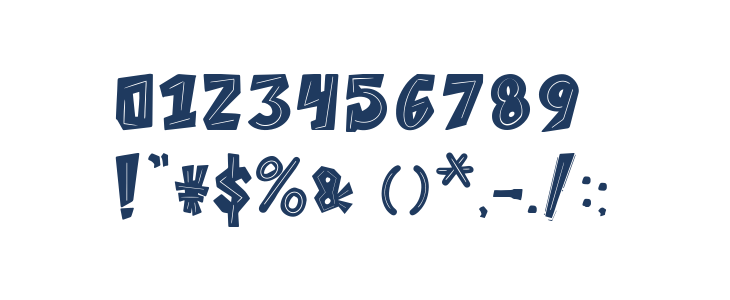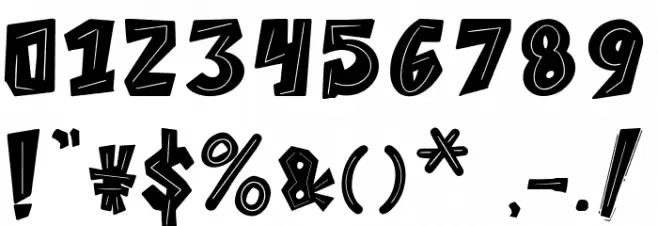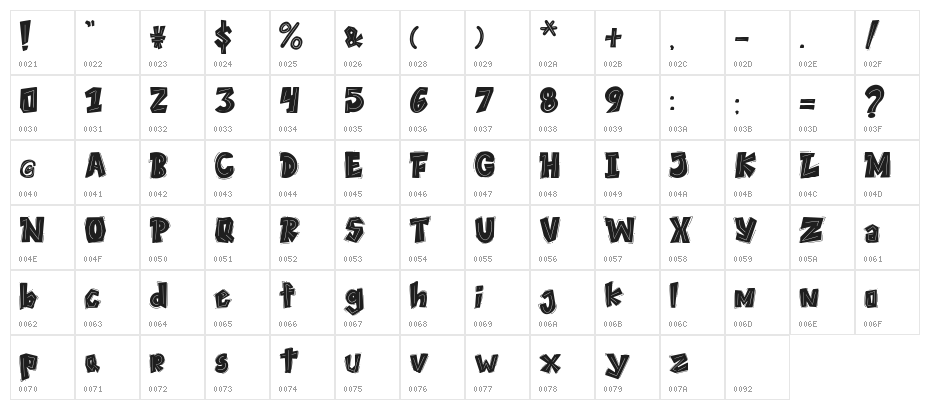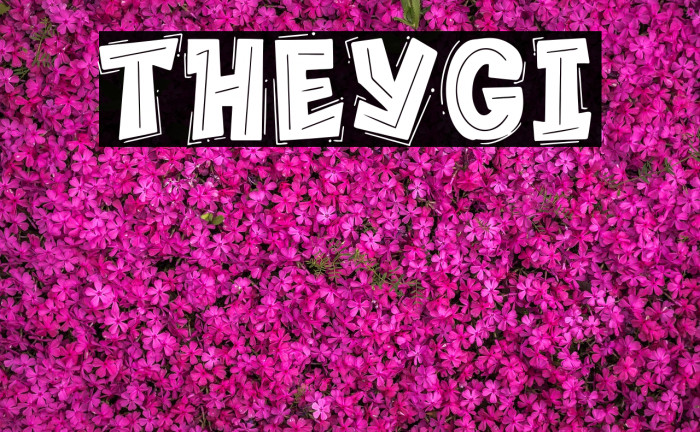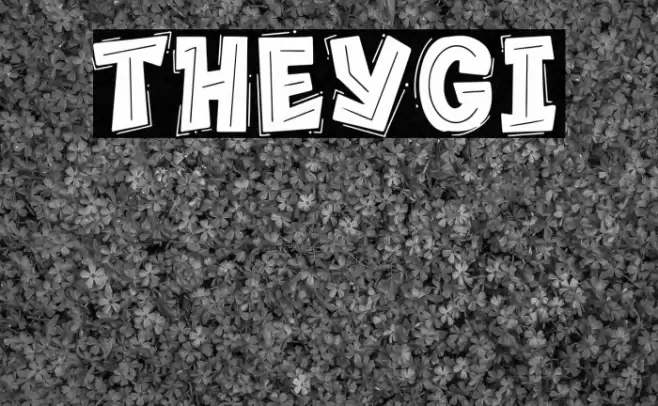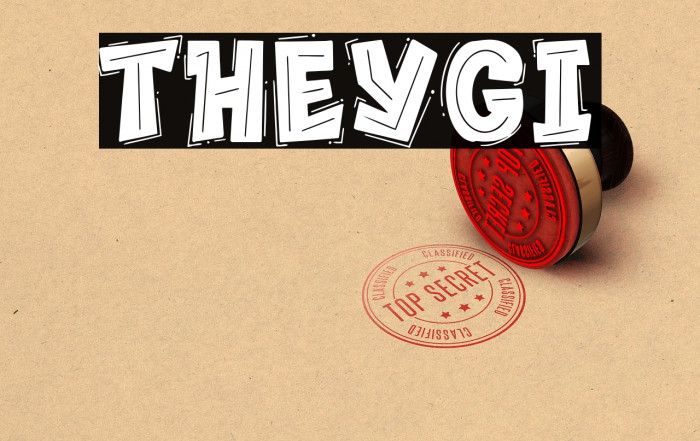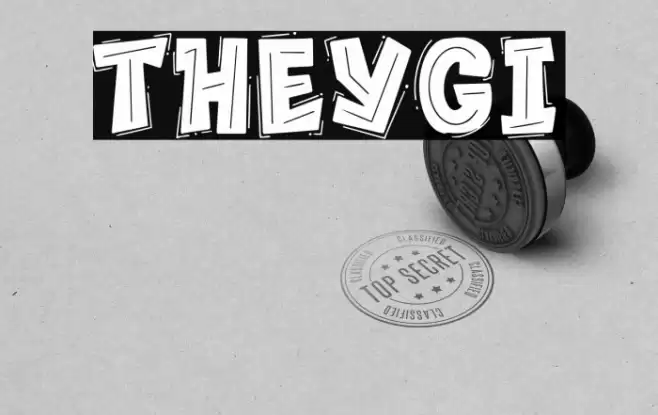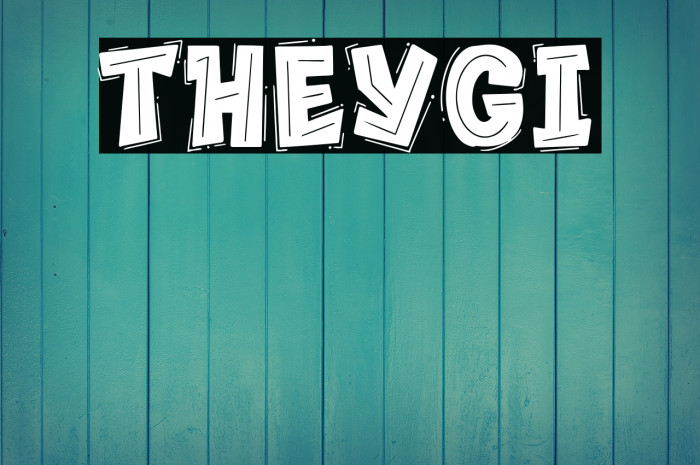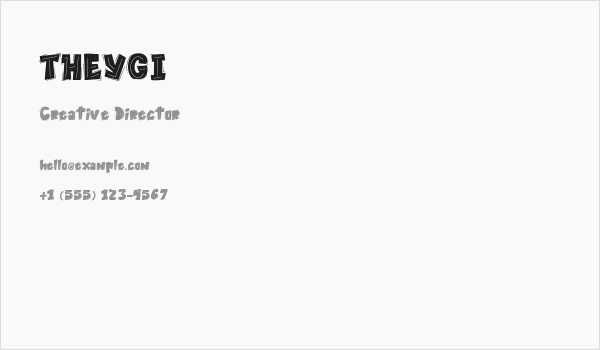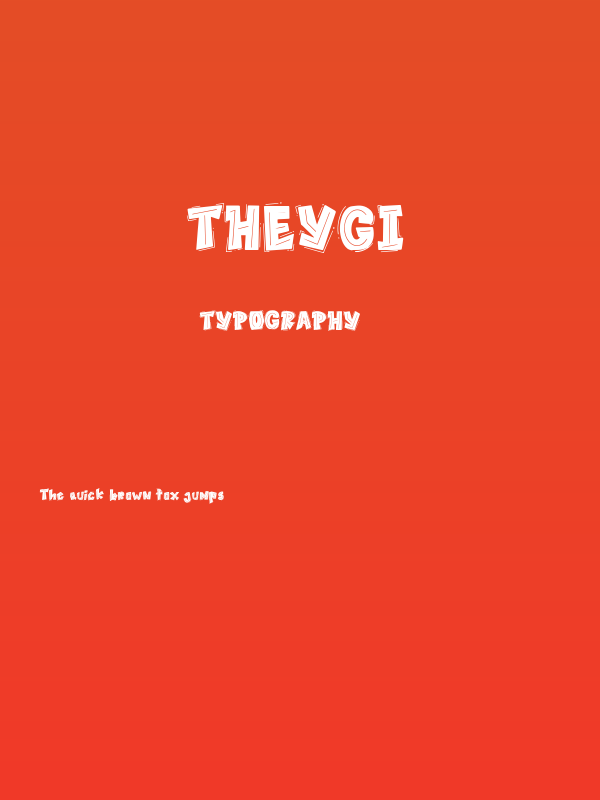
THEYGI Font
THEYGI Description
This font features a bold, playful style with a dynamic and energetic appearance. The letters are characterized by irregular, jagged edges and a hand-drawn aesthetic, giving it a lively and informal feel. The uppercase and lowercase letters maintain a consistent style, with exaggerated curves and angles that add to its whimsical nature. Numbers and special characters follow the same design principles, ensuring a cohesive look across all glyphs. The font's thick strokes and high contrast make it highly legible, even at smaller sizes, while the unique design elements make it stand out in any application.
| Overall Style | Playful, Energetic, Hand-drawn |
| Proposed Projects | Ideal for comic books, children's books, playful branding, posters, and any project requiring a fun and informal touch. |